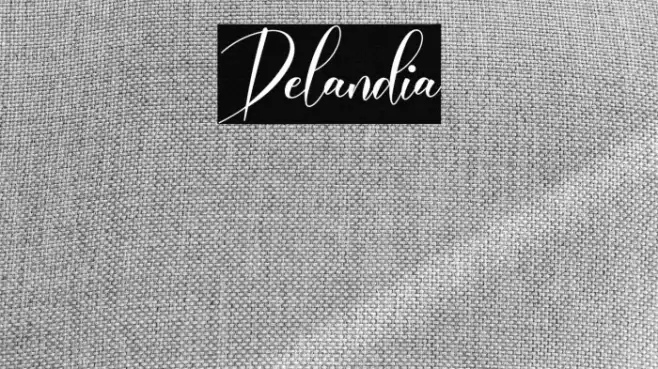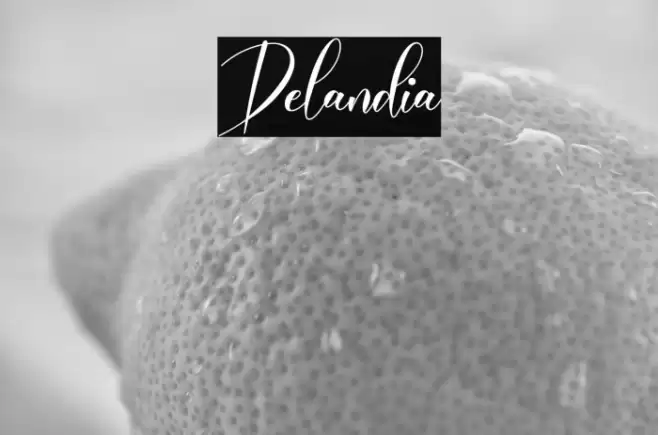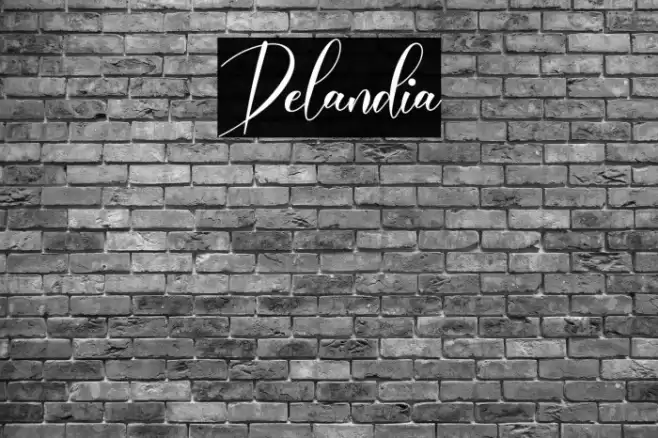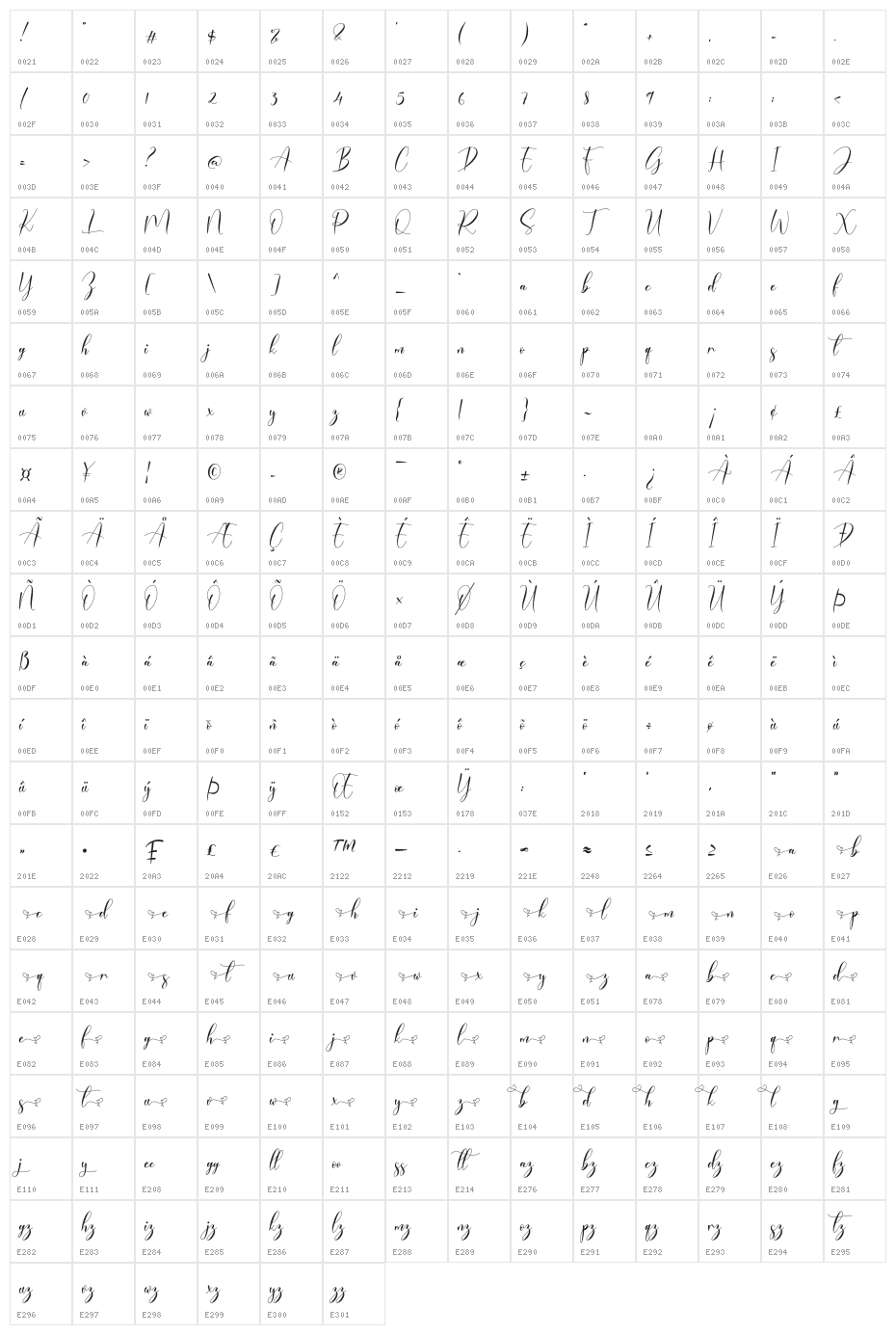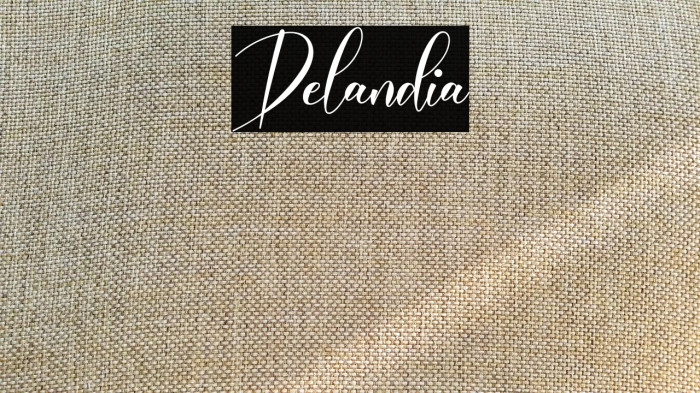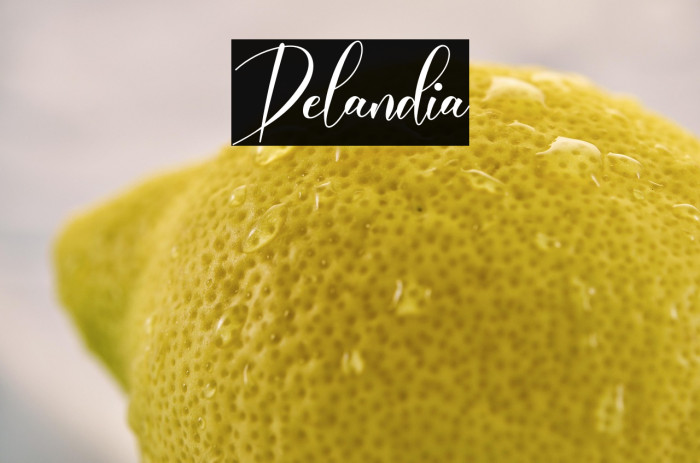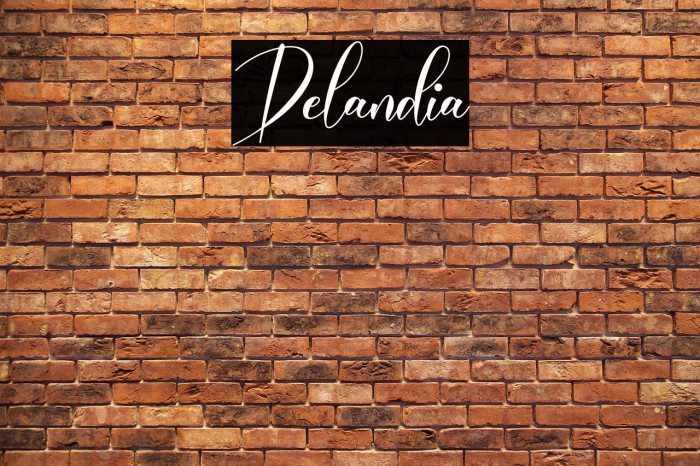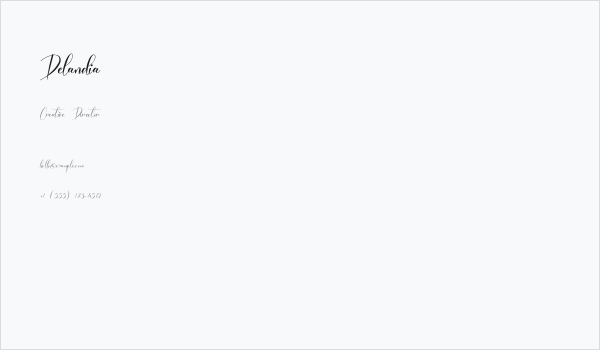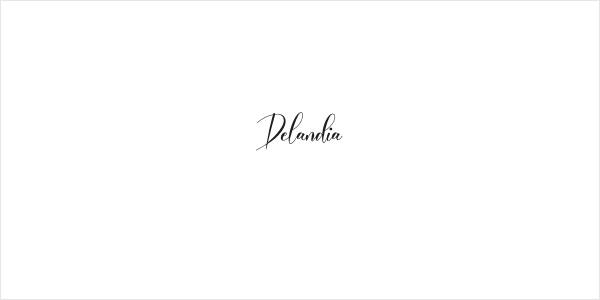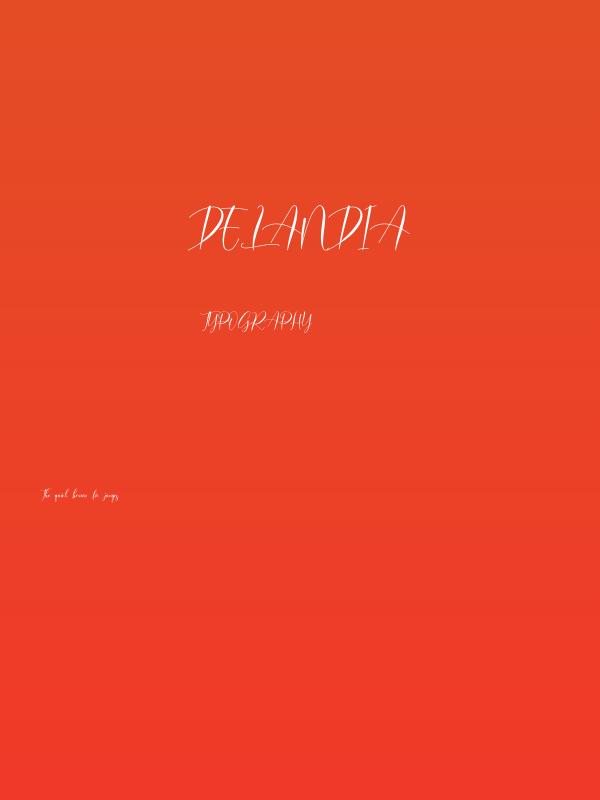
Delandia Font
Delandia Description
This elegant script font features flowing, interconnected letters that exude a sense of sophistication and grace. The uppercase letters are tall and slender, with sweeping curves and delicate flourishes that add a touch of drama. The lowercase letters maintain a consistent style, with smooth, rounded forms that enhance readability while retaining the font's decorative appeal. Numbers and special characters are designed with the same attention to detail, ensuring a cohesive look across all text elements. The font's overall aesthetic is both classic and modern, making it versatile for various design applications.
A sophisticated script font with elegant, flowing letters and decorative flourishes from Uncategorized fonts.
- Proposed Projects: Ideal for wedding invitations, luxury branding, greeting cards, and elegant packaging designs.
- Overall Style: Elegant, Decorative
- Use Case: Logos, Invitations, Branding